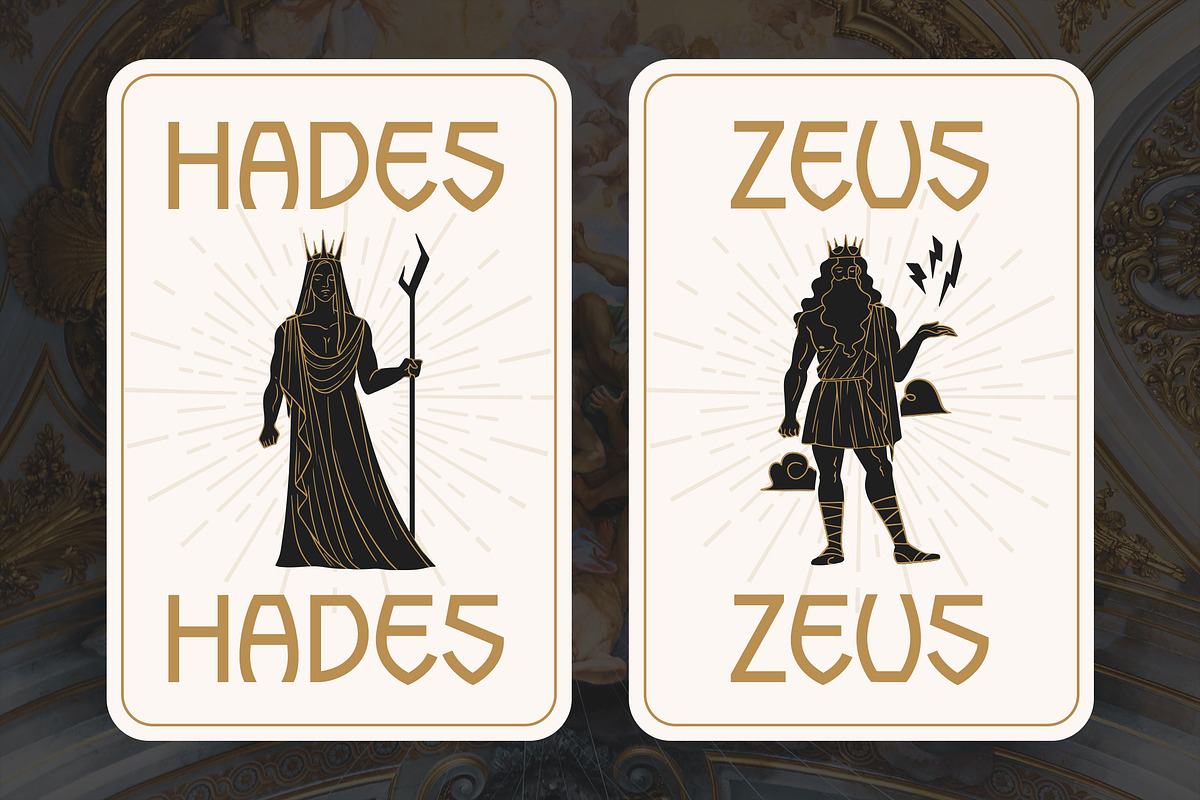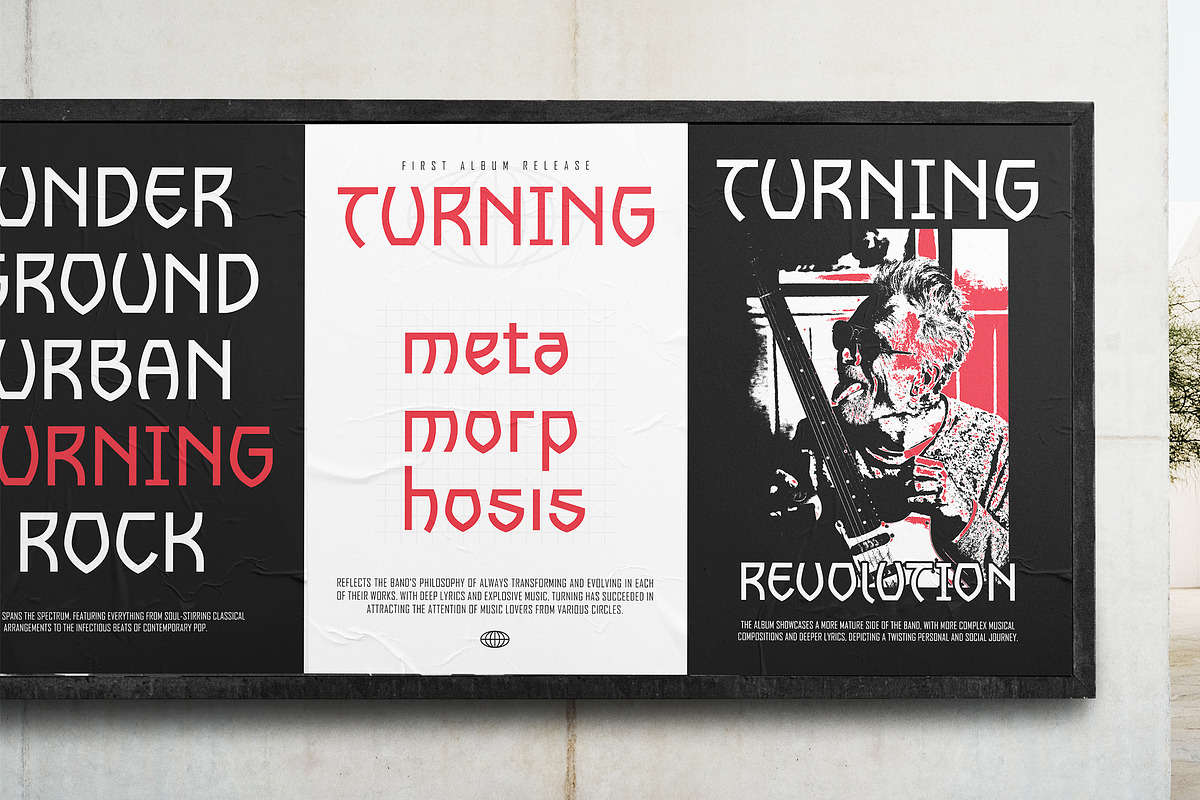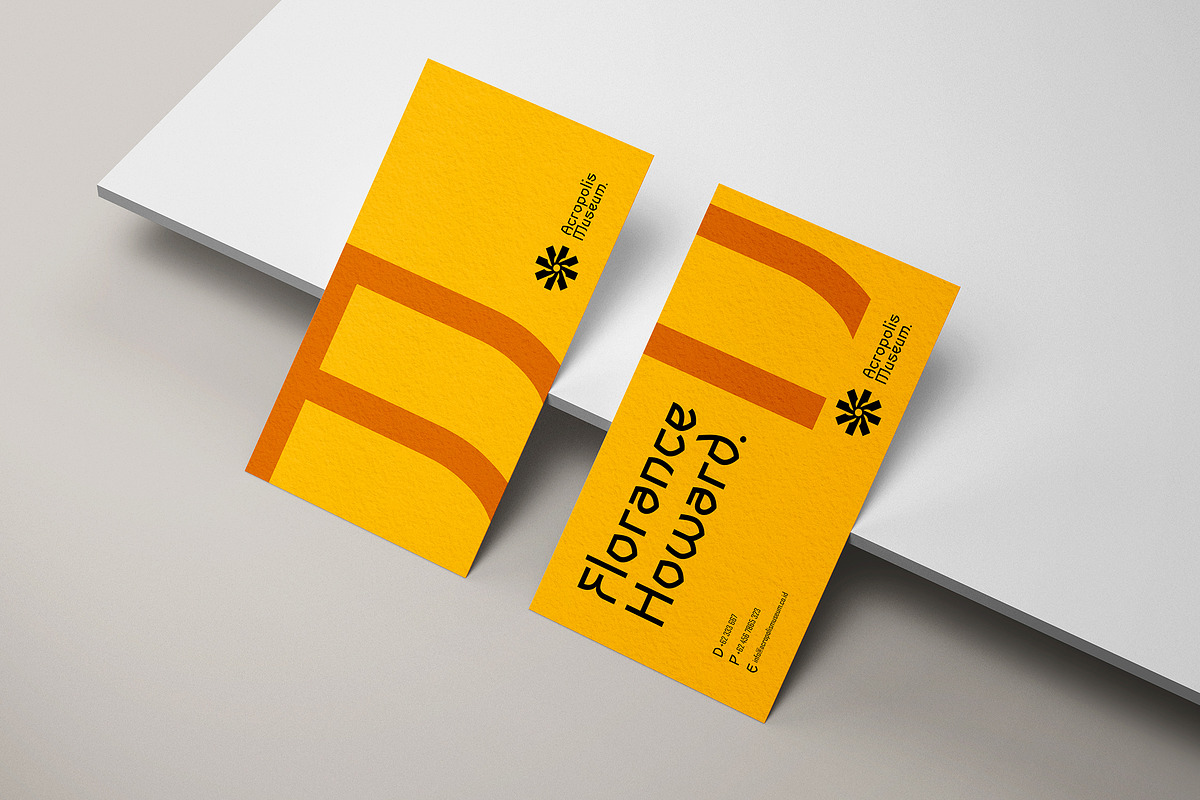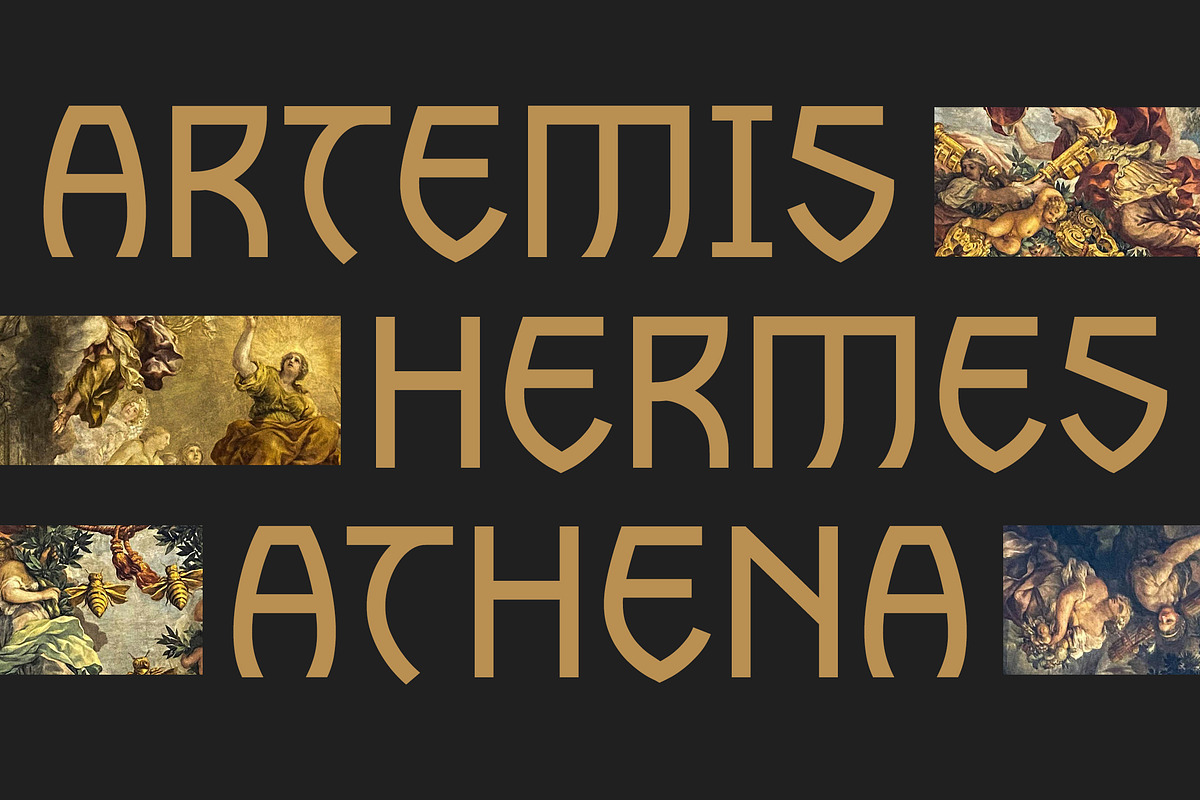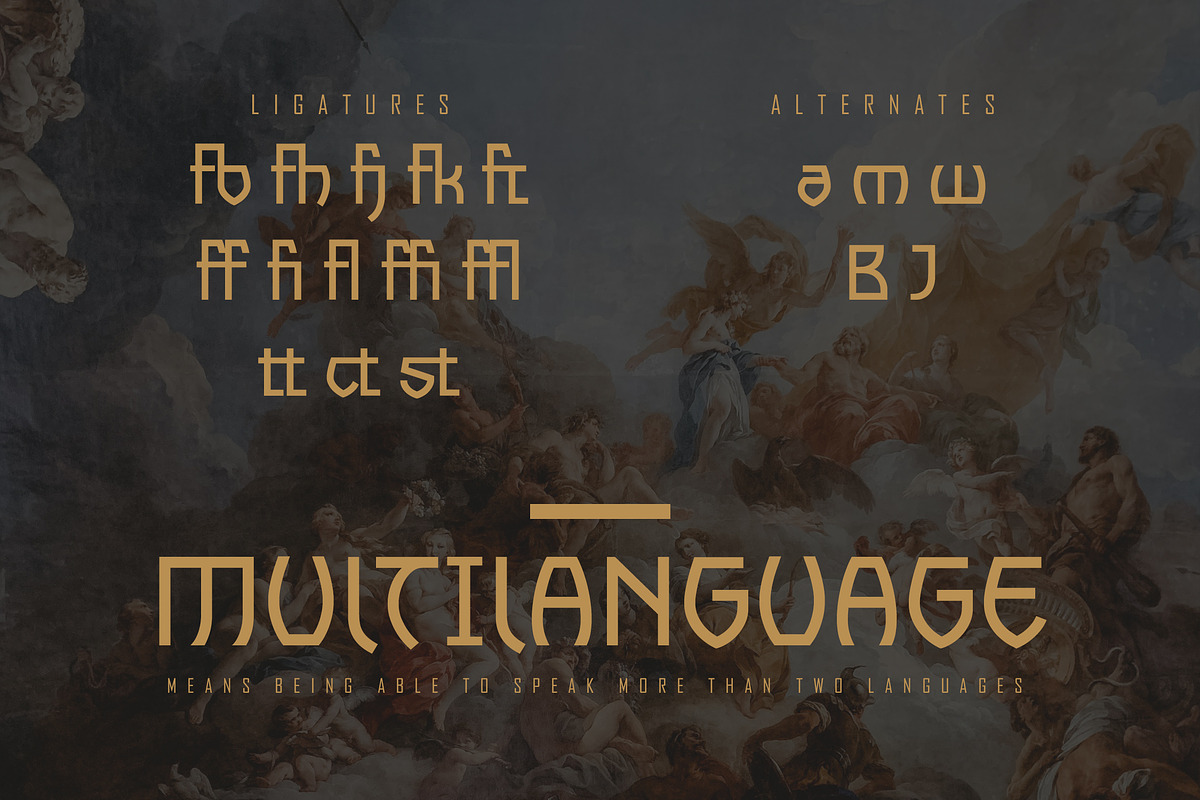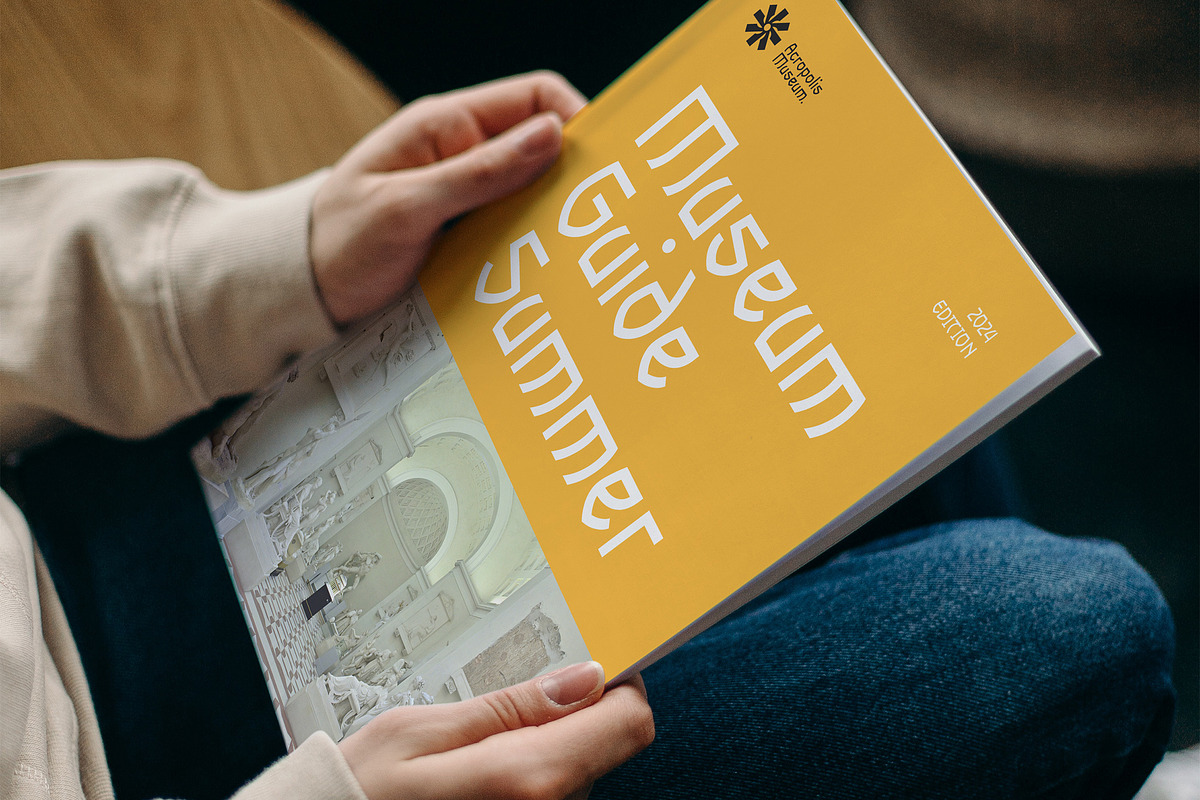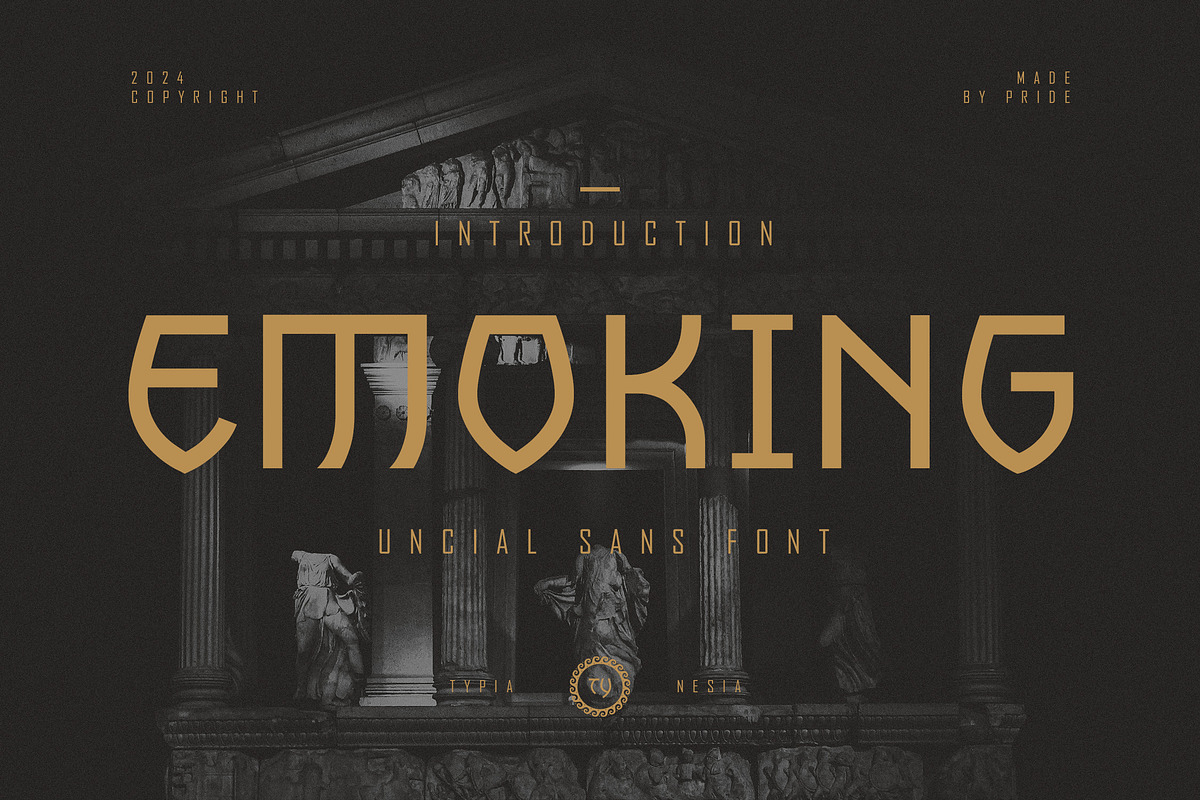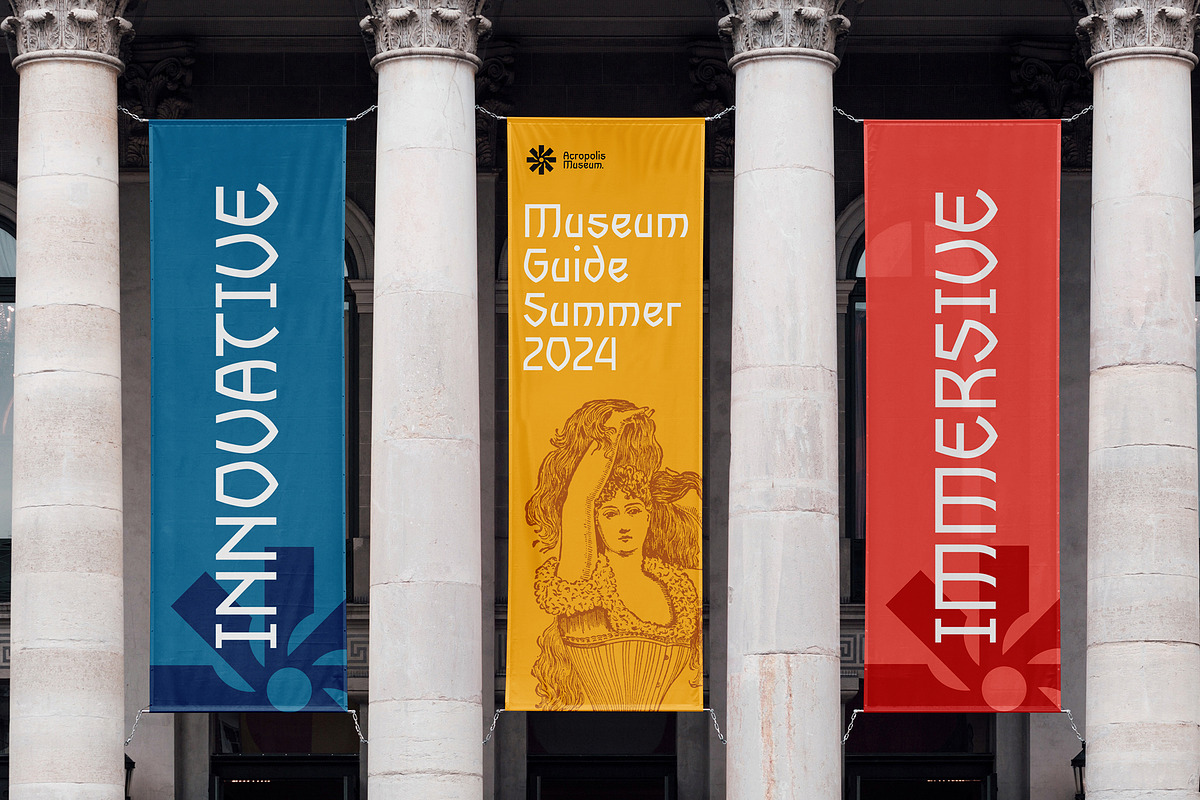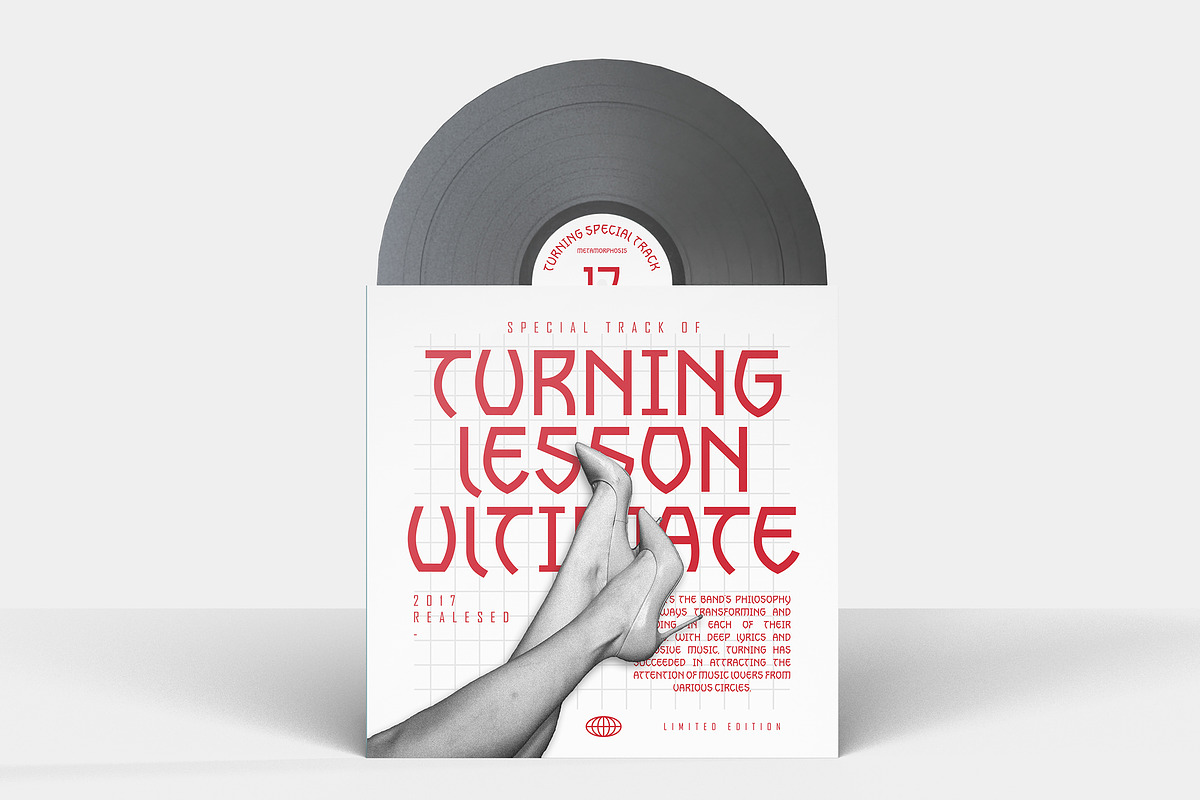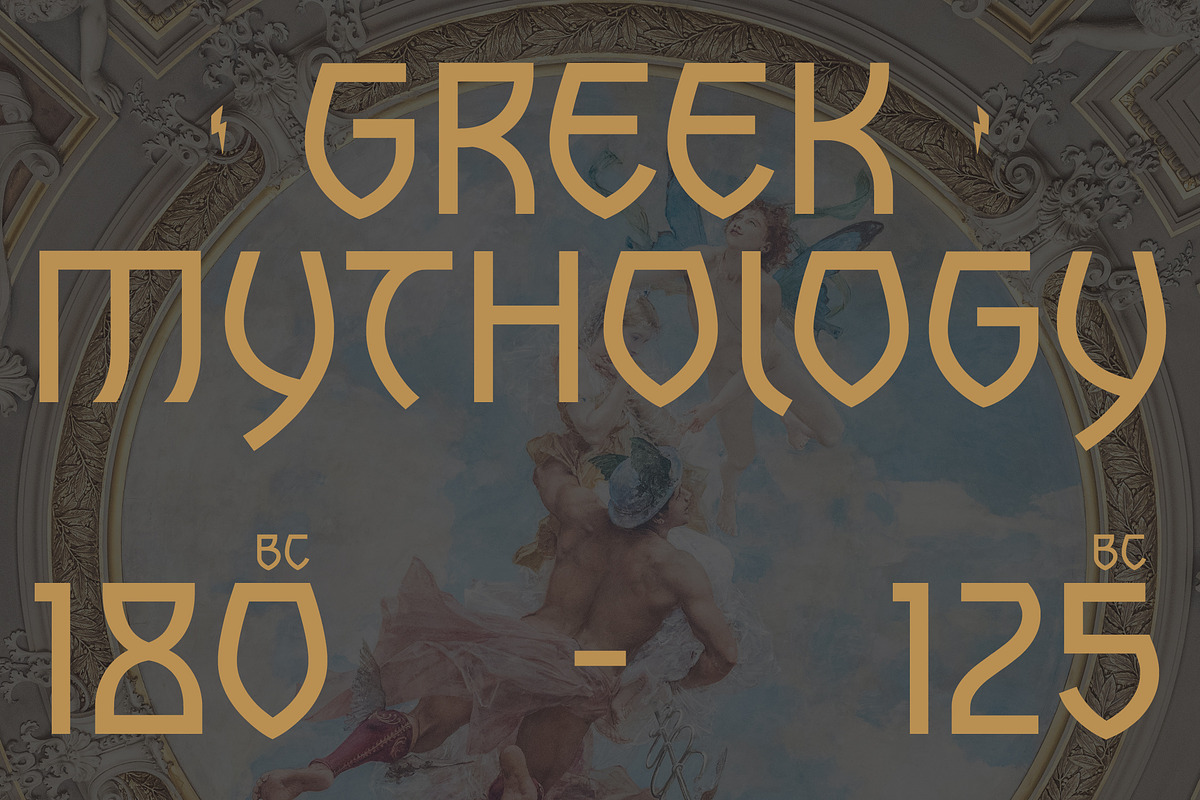
Emoking - Uncial Sans Serif Font
Emoking - Uncial Sans Serif Font - Rounded Modern Historical Display Font.
Emoking is an Uncial Sans Serif Font that seamlessly blends the ancient, rounded forms of uncial script with the clean lines of modern sans serif design. This unique combination creates a font that is both historical and contemporary, offering a distinctive and timeless aesthetic. Make it Perfect for branding, book covers, logo design, historical and cultural projects, signage and display, product packaging, editorial design, and any design requiring a unique touch and sophisticated combination of historical and contemporary. Comes with packed of features to enhance your creative work. It includes ligatures for smooth character combinations, a complete set of uppercase and lowercase letters, punctuation, numerals, and alternate characters. Additionally, it offers extensive multilingual support, making it a versatile choice for global use. Crafted with meticulous attention to detail, Emoking combines the rich history of uncial script with modern typographic techniques, making it a reliable choice for designers seeking to create unique and impactful designs.